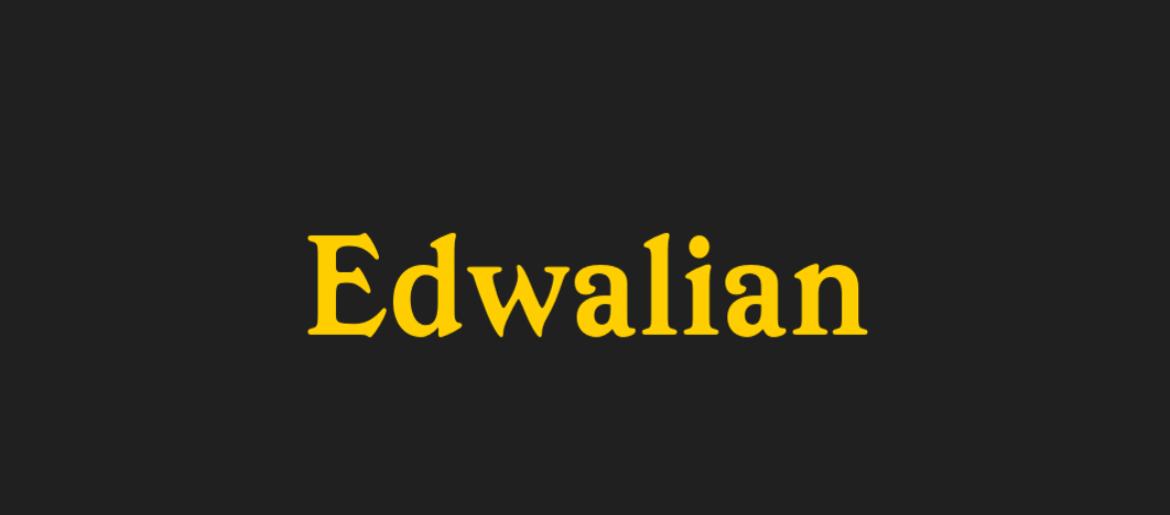
Edwalian Font
Edwalian font
Edwalian Font is an elegant, calligraphy-inspired typeface that blends classic serif structure with flowing, handwritten touches. Its refined curves and graceful letterforms make it ideal for luxury branding, invitations, quotes, and stylish editorial designs. Edwalian brings a timeless, sophisticated charm to any project that seeks beauty and finesse.
➤ Font Name:  Edwalian
➤ Designer: OPTIFONT
➤ Style: Serif
Edwalian Font